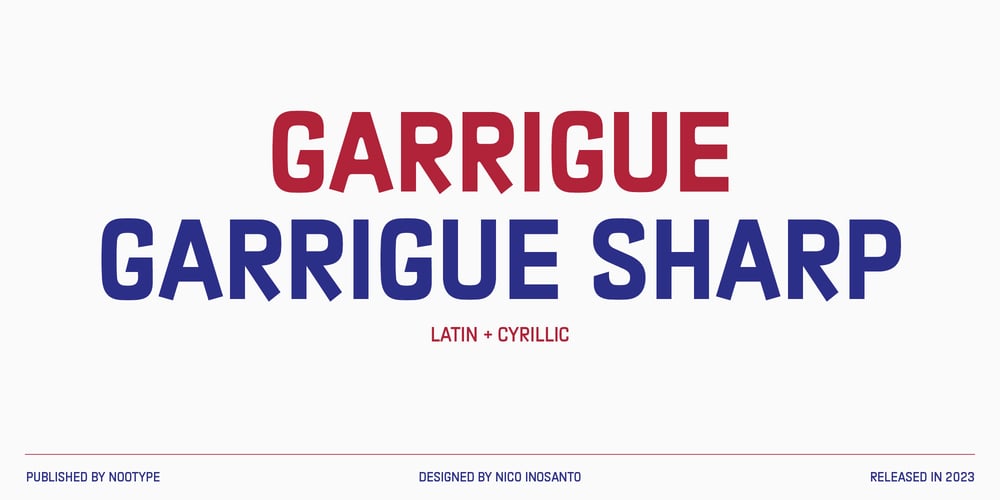
Garrigue
Garrigue font
Garrigue Font Family was designed by Nico Inosanto and published by Nootype. Garrigue contains 14 styles and family package options. Garrigue is a sans-serif typeface, it’s inspired by the typography of German rationalism of mid XXth century, the base version is combining this rationalism with more organic elements, while Garrigue Sharp is simpler, ideal for technical applications. The OpenType functions allows near 700 different combinations of ligatures in Capital letters, which gives to text interesting patterns and a lot of dynamism in 100 different languages, including cyrillic. The family contains different stylistic alternates which gives more flexibility to the typeface.The Garrigue family includes 14 weights, seven styles from Thin to Black in Normal and “Sharp” version. Each font includes OpenType Features such as Discretional Ligatures, Proportional Figures, Tabular Figures, Numerators, Superscripts, Denominators, Scientific Inferiors, Subscript, Ordinals, Standard Ligatures, Stylistic Alternates and Fractions.Larsseit family supports Latin and Cyrillic, all these languages are covered:Latin language support:Afrikaans, Albanian, Asturian, Azeri, Basque, Bosnian, Breton, Bulgarian, Catalan, Cornish, Corsican, Croatian, Czech, Danish, Dutch, English, Esperanto, Estonian, Faroese, Filipino, Finnish, Flemish, French, Frisian, Friulian, Gaelic, Galician, German, Greenlandic, Hungarian, Icelandic, Indonesian, Irish, Italian, Kurdish, Latin, Latvian, Lithuanian, Luxembourgish, Malagasy, Malay, Maltese, Maori, Moldavian, Norwegian, Occitan, Polish, Portuguese, Provençal, Romanian, Romansch, Saami, Samoan, Scots, Scottish, Serbian, Slovak, Slovenian, Spanish, Swahili, Swedish, Tagalog, Turkish, Walloon, Welsh, WolofCyrillic language support:Adyghe, Avar, Belarusian, Bulgarian, Buryat, Chechen, Erzya, Ingush, Kabardian, Kalmyk, Karachay-Balkar, Karakalpak, Kazakh, Komi, Kyrgyz, Lak, Macedonian, Moldovan, Mongol, Permyak, Russian, Rusyn, Serbian, Tatar, Tofa, Tuvan, Ukrainian, Uzbek